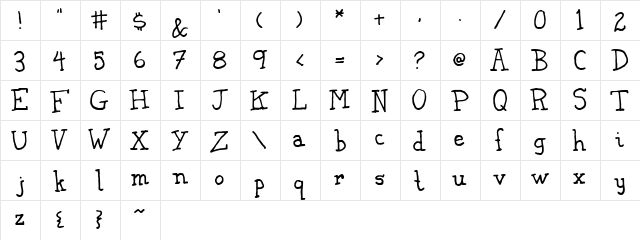
KooRear Regular
Design Context for KooRear Typeface
KooRear takes a measured approach to typography — its balanced proportions and neutral character make it a reliable workhorse for both digital and print work.